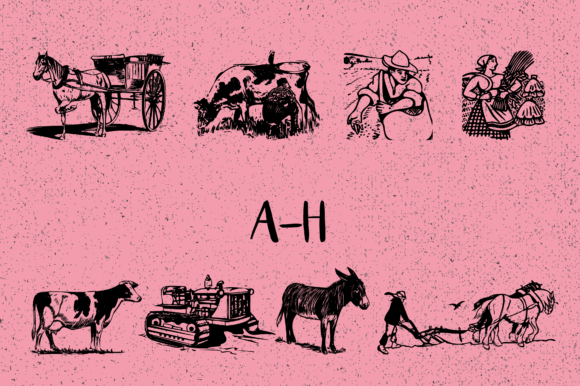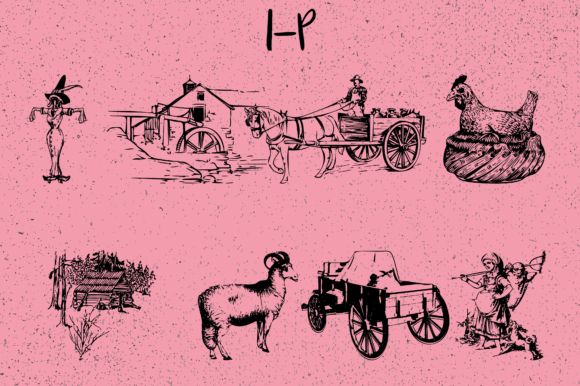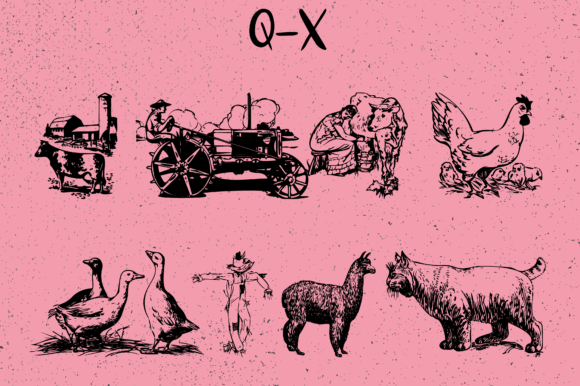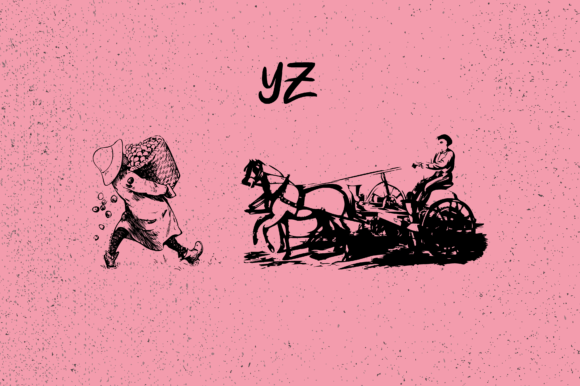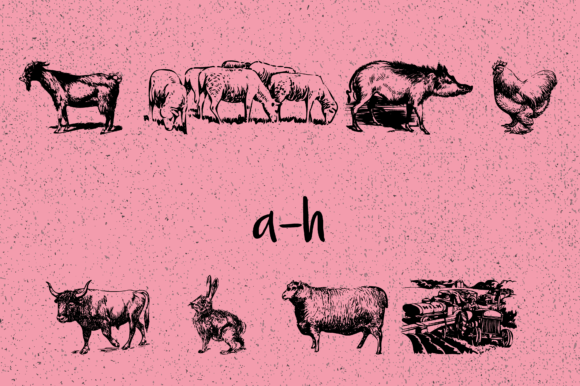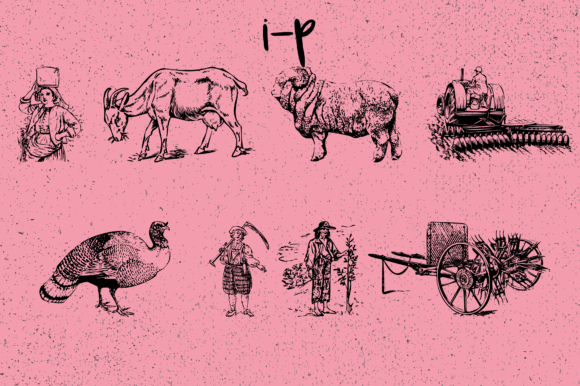
The Farm Font: A Cool and Unique Dingbats Font for Your Creative Projects
I’ll never forget the time I was working on a project for a client who wanted a rustic, countryside feel. I had spent hours browsing through font libraries, but nothing seemed quite right. That was until I stumbled upon the Farm font, a cool and uniquely designed dingbats font that completely transformed my design. In this article, I’ll share my experience with the Farm font, its features, and how to make the most of it in your creative projects.
An Honest Review of the Farm Font
What I Love About the Farm Font ✨
- ✅ Unique and quirky design that’s perfect for adding a personal touch to your projects
- ✅ Highly versatile and can be used for a wide range of creative projects, from branding to crafting
- ✅ Easy to read and understand, even at small sizes
- ✅ Extensive character set, including glyphs and stylistic alternates
- ⚠️ Some characters may require manual kerning for optimal spacing
- ⚠️ Limited language support, so it’s best to use it for English or similar languages
The Backstory of the Farm Font
The Farm font was designed by a team of creatives who wanted to capture the essence of rural life. Inspired by vintage signs, farm equipment, and natural landscapes, they created a font that’s both rustic and charming. The result is a unique and versatile font that’s perfect for adding a personal touch to your creative projects.
| What is the Farm font? | The Farm font is a cool and uniquely designed dingbats font that’s perfect for adding a rustic touch to your creative projects. |